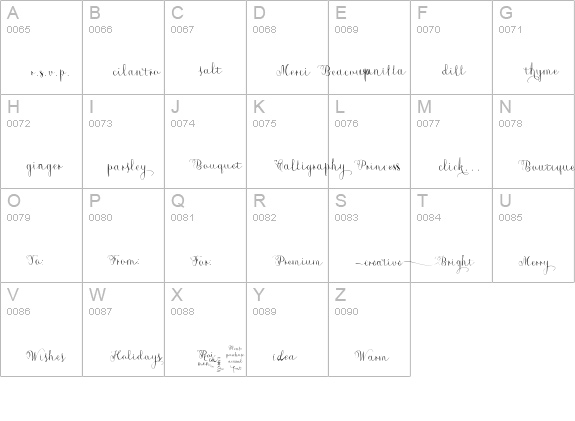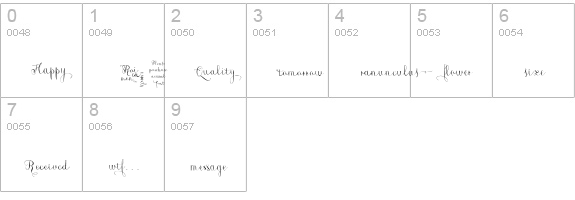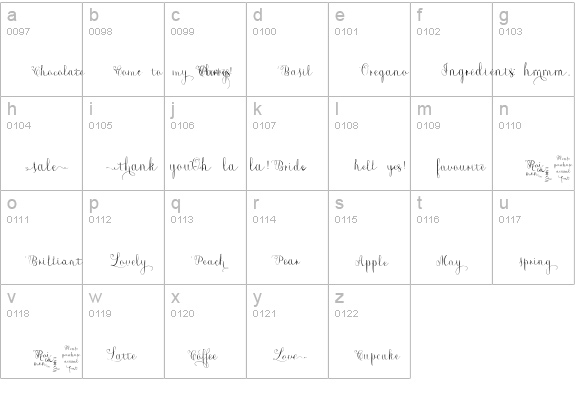
Roicamonta Words Font Details
Roicamonta Words font is a stunning display font that is sure to captivate and intrigue. With its unique and creative design, this font is perfect for adding a touch of elegance and sophistication to any project. The intricate details and elegant curves of each letter make Roicamonta Words font a true work of art. One of the best things about Roicamonta Words font is that it is completely free. Yes, you read that right - this amazing font can be downloaded and used without any cost. It's a great opportunity to add a high-quality font to your collection without breaking the bank. To get your hands on this remarkable font, simply head over to FontsMarket.com. There, you will find a vast selection of fonts, including Roicamonta Words font, all available for free download. FontsMarket.com is a trusted source for high-quality fonts, and their easy-to-use website makes it a breeze to find and download the fonts you need. Whether you're a graphic designer looking to enhance your designs or a business owner in need of a unique font for your branding, Roicamonta Words font is the perfect choice. Its versatility allows it to be used for a wide range of projects, from logos and headlines to invitations and posters. Don't miss out on the opportunity to add Roicamonta Words font to your font library. Download it for free today at FontsMarket.com and let your creativity soar.